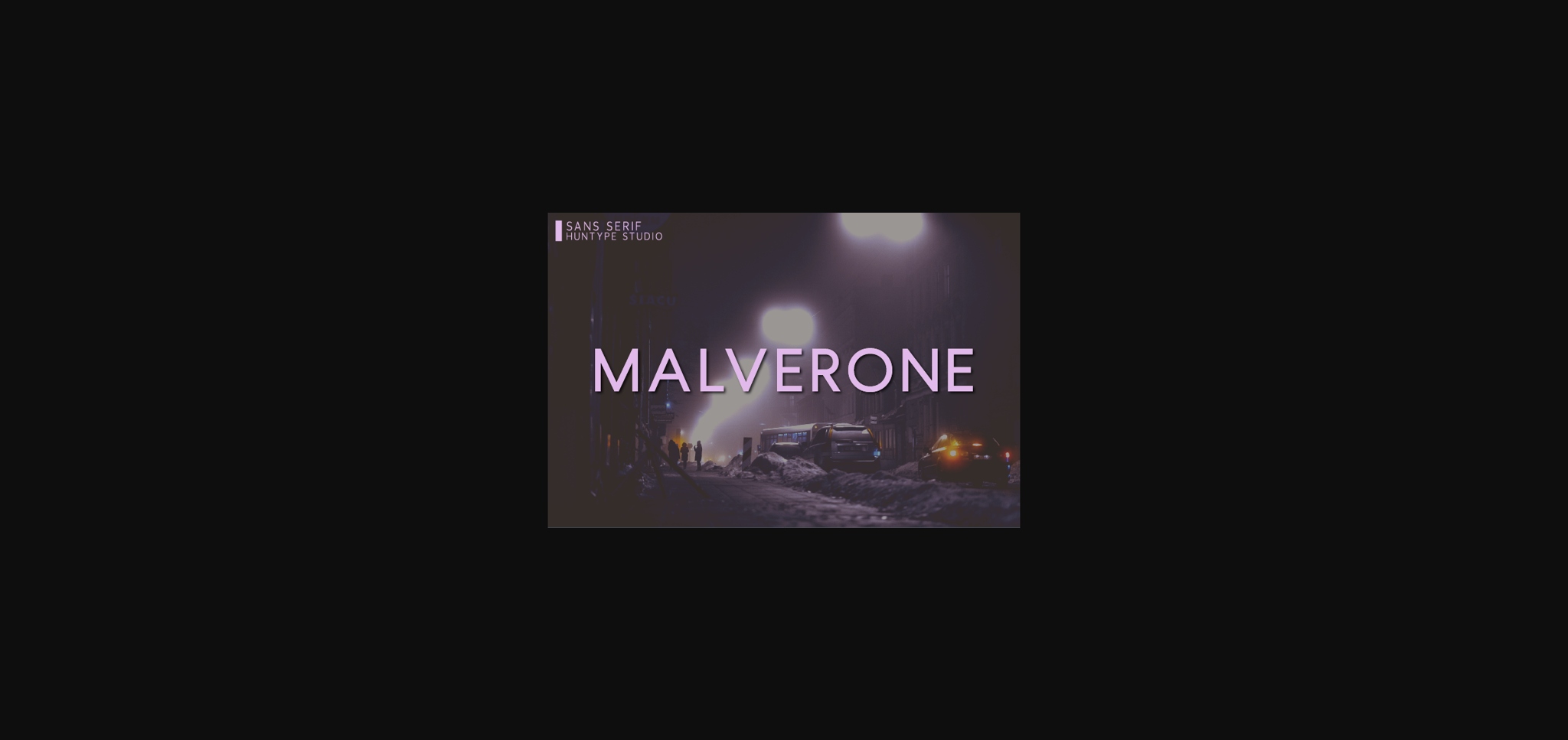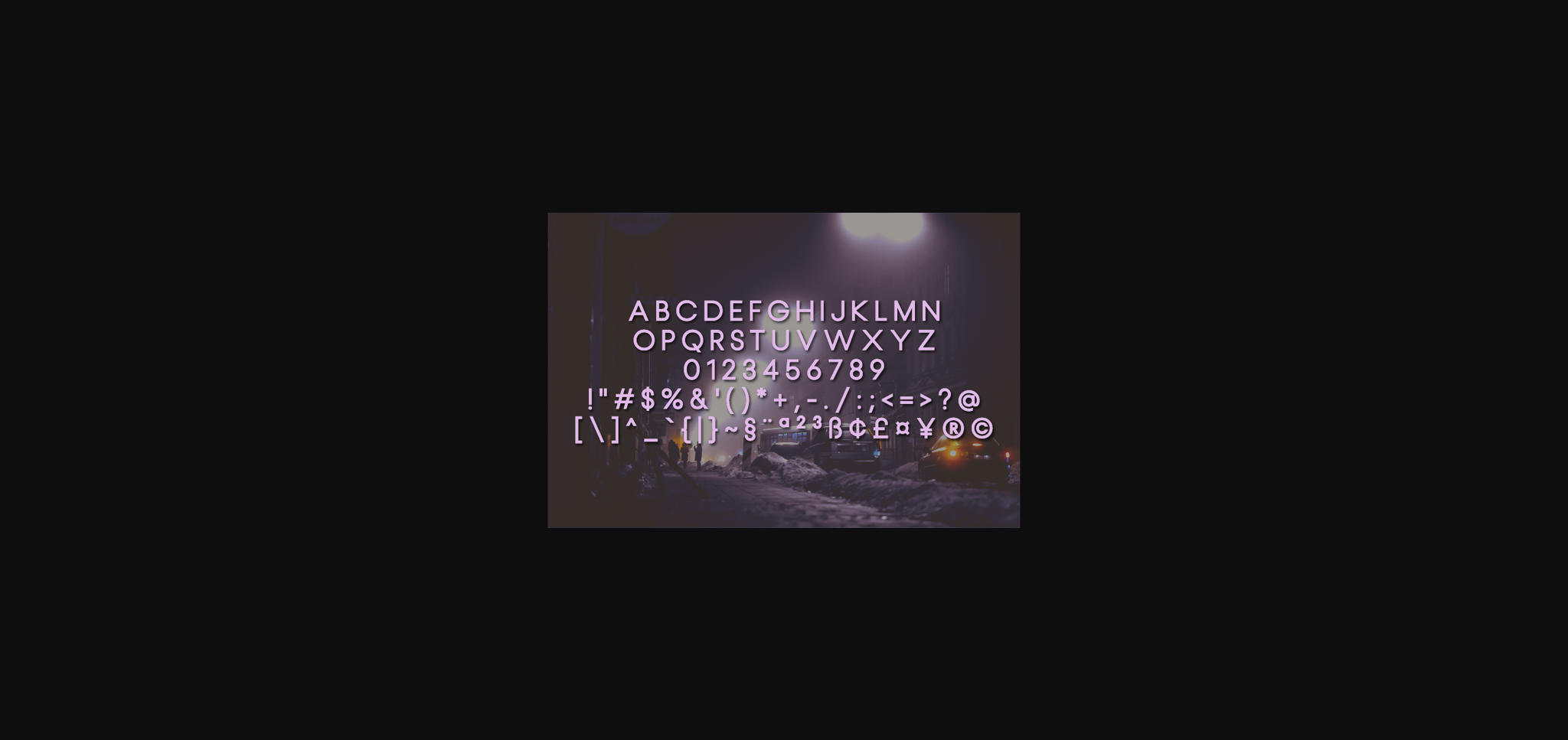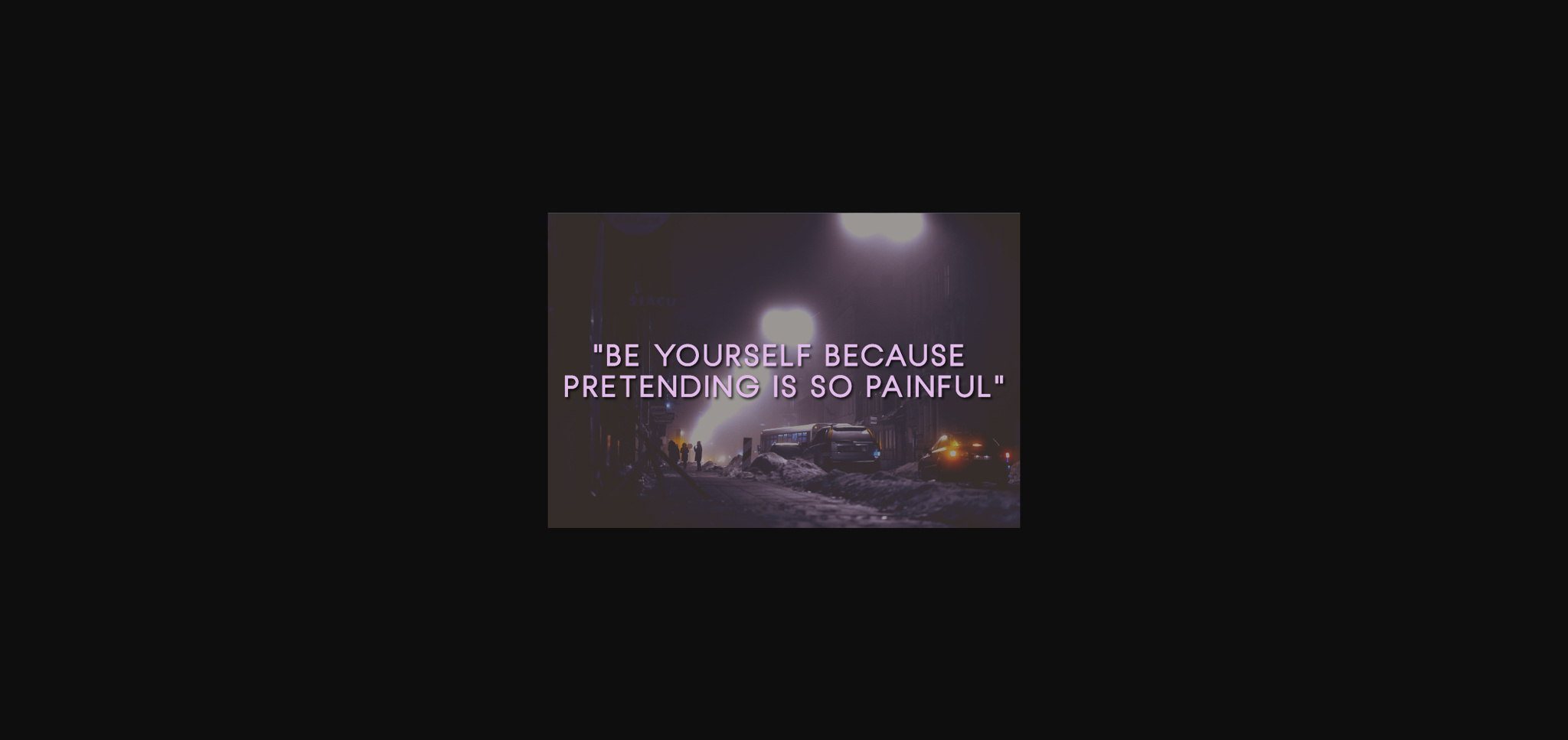
Malverone Font
About Malverone Font
Malverone is a minimal and neat sans serif font. It can easily be matched to an incredibly large set of projects, so add it to your creative ideas and notice how it makes them stand out!